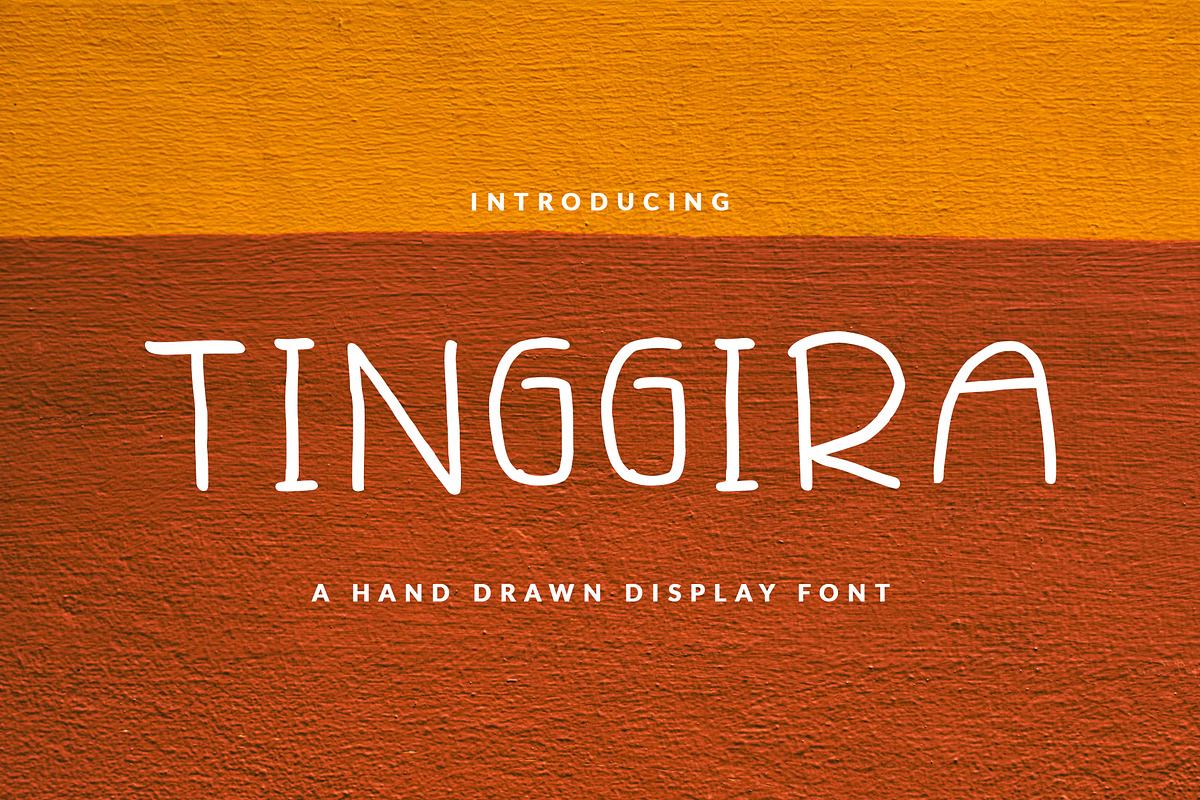
Tinggiira Font Book & Childish Free Download is a delightful, kid-friendly typeface that combines the simplicity of a book font with the playful spirit of childhood. With rounded edges, bubbly shapes, and an easy-to-read structure, this font is perfect for children’s books, classroom materials, educational posters, games, toys, and all things colorful and fun.
Using the Tinggiira Font Book & Childish Free Download brings warmth and approachability to your design work. Whether you're creating learning resources, crafting storybook pages, or designing for kids’ brands, this font delivers both clarity and creativity in a charming way.